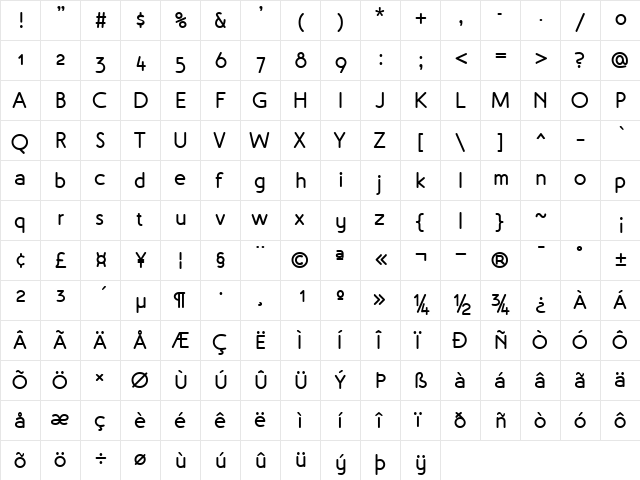
Malvern OSF Bold
Design Context for Malvern OSF Typeface
Malvern OSF offers clean, dependable letterforms without strong stylistic allegiance, making it a practical choice for designers who need flexibility. Its bold stroke weight gives it real presence on the page.